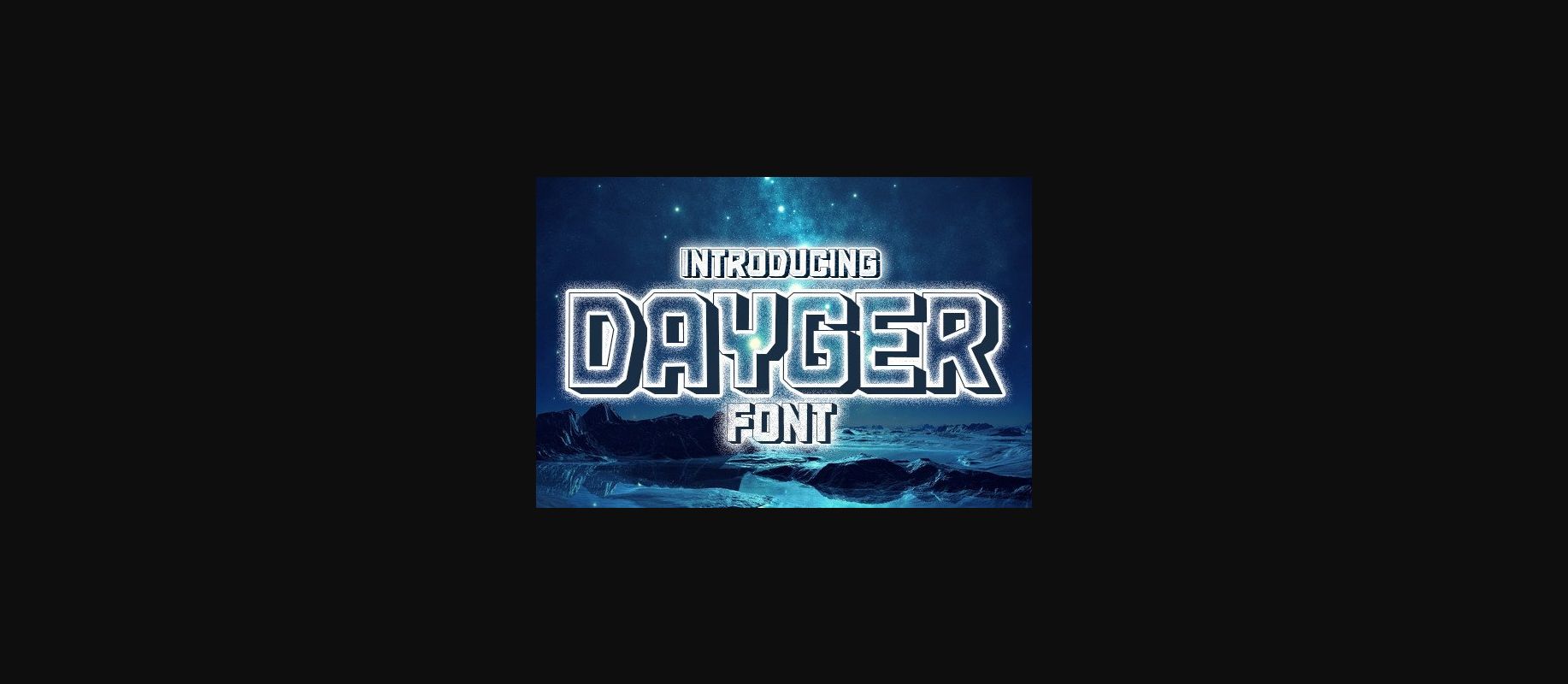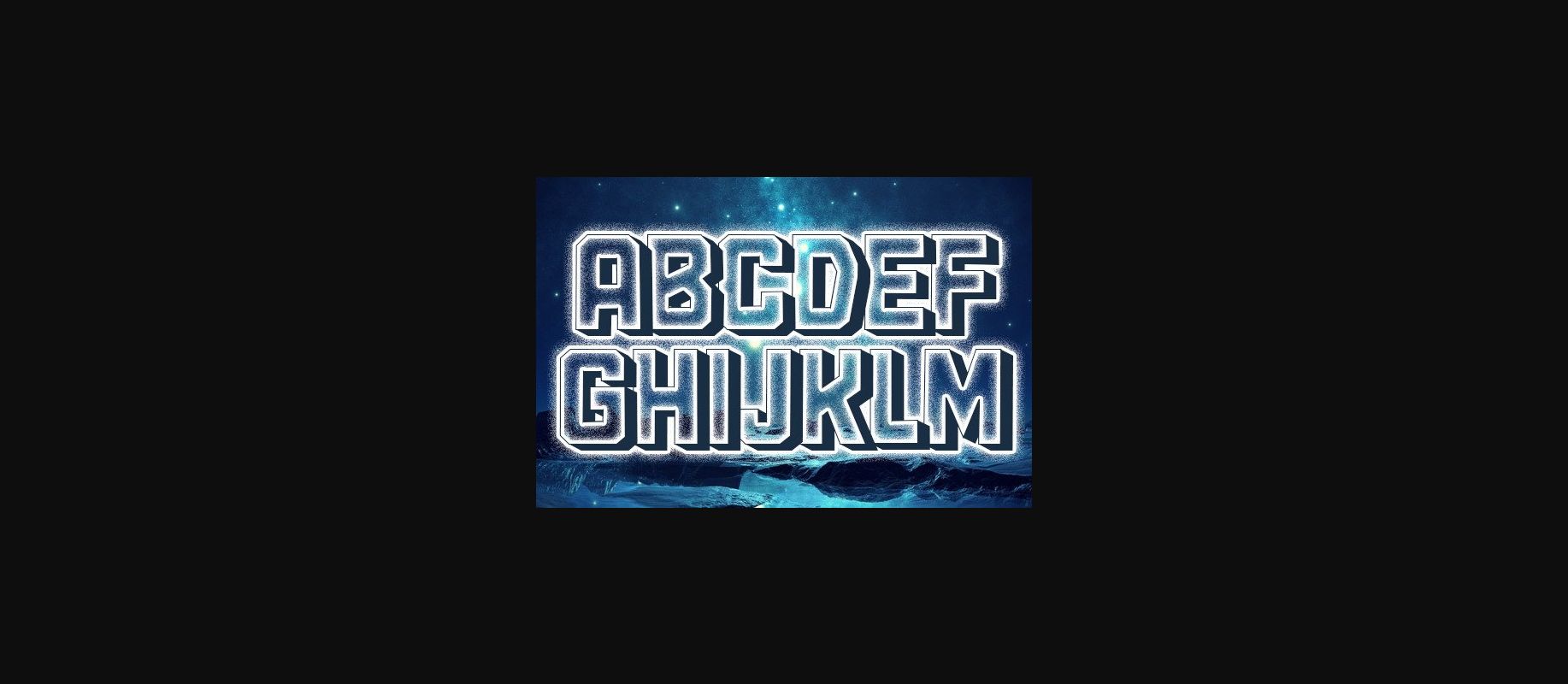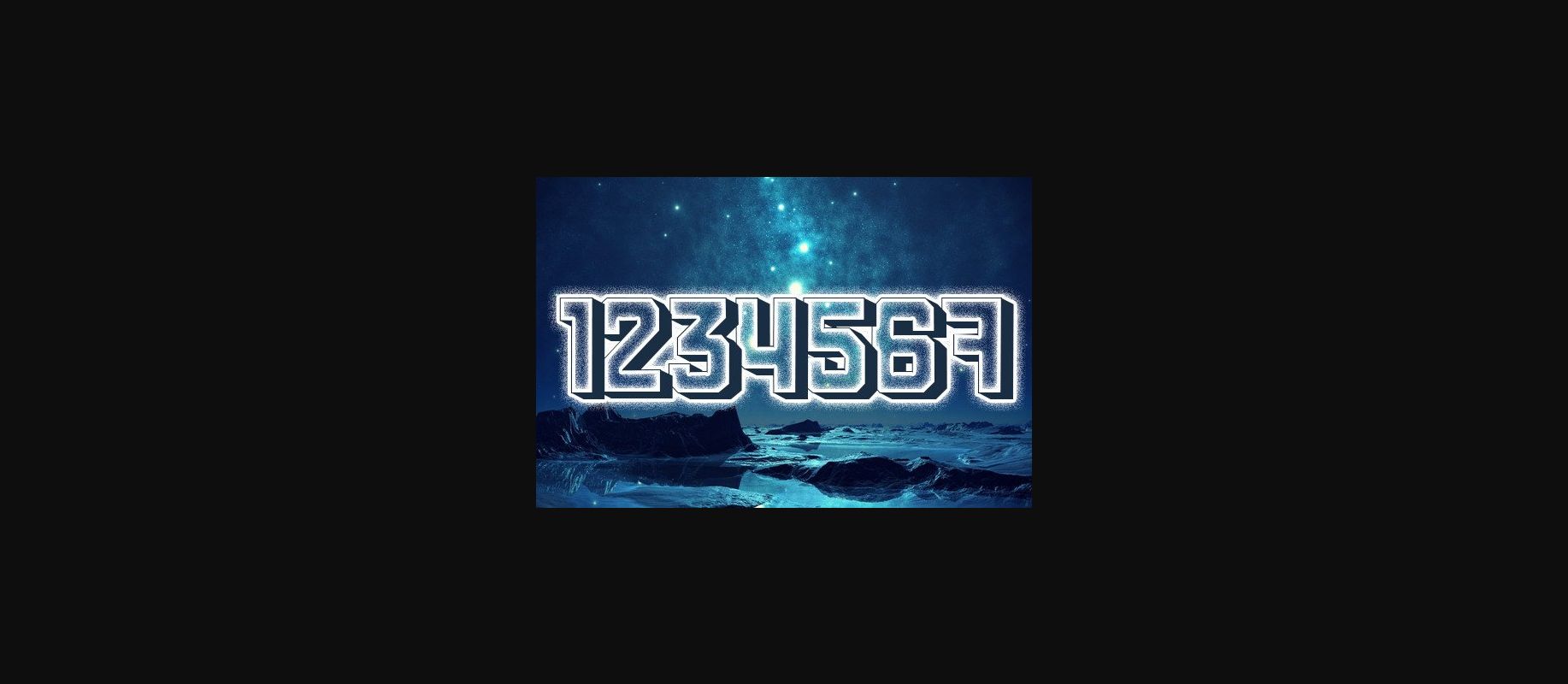
HomeDecorative FontsDayger Font Decorative Fonts Dayger Font FacebookXPinterestWhatsApp 1 of 5 ... Dayger Font Poster 2... Dayger Font Poster 3... Dayger Font Poster 4... Dayger Font Poster 5... About Dayger Font Dayger is an awesome 3D decorative typeface that will inspire your designs. Use this font on shirts, posters, and flyers. DOWNLOAD NOW People also explored Nathalia Duo Font Galaxy Sprinkle Font Chalk Love Font Brooklyner Oribella Font Beer Font Cool Font Dernzou Font Yaihon Font 312 0 TagsDaygerDayger Font Previous articleDenim FontNext articleSamhain Font LEAVE A REPLY Cancel reply Comment: Please enter your comment! Name:* Please enter your name here Email:* You have entered an incorrect email address! Please enter your email address here Website: Save my name, email, and website in this browser for the next time I comment. Personal Use Free Love Memories Personal Use Free Read more about this font Knox Personal Use Free Read more about this font Harmony Personal Use Free Read more about this font Brittish State Personal Use Free Read more about this font BLOG Free vs Paid Fonts: Why Investing in Premium Fonts Is Worth It Free vs Paid Fonts: Why Premium Fonts Are Worth It in 2025 The debate of free vs paid fonts continues in the design world. While... Top 7 Google Fonts Alternatives for Faster and Privacy-Friendly Web Design (2025) Top 10 Handwritten Fonts That Elevate Your Designs How to Cut Any Font on Cricut: Convert a Font to SVG (Free)